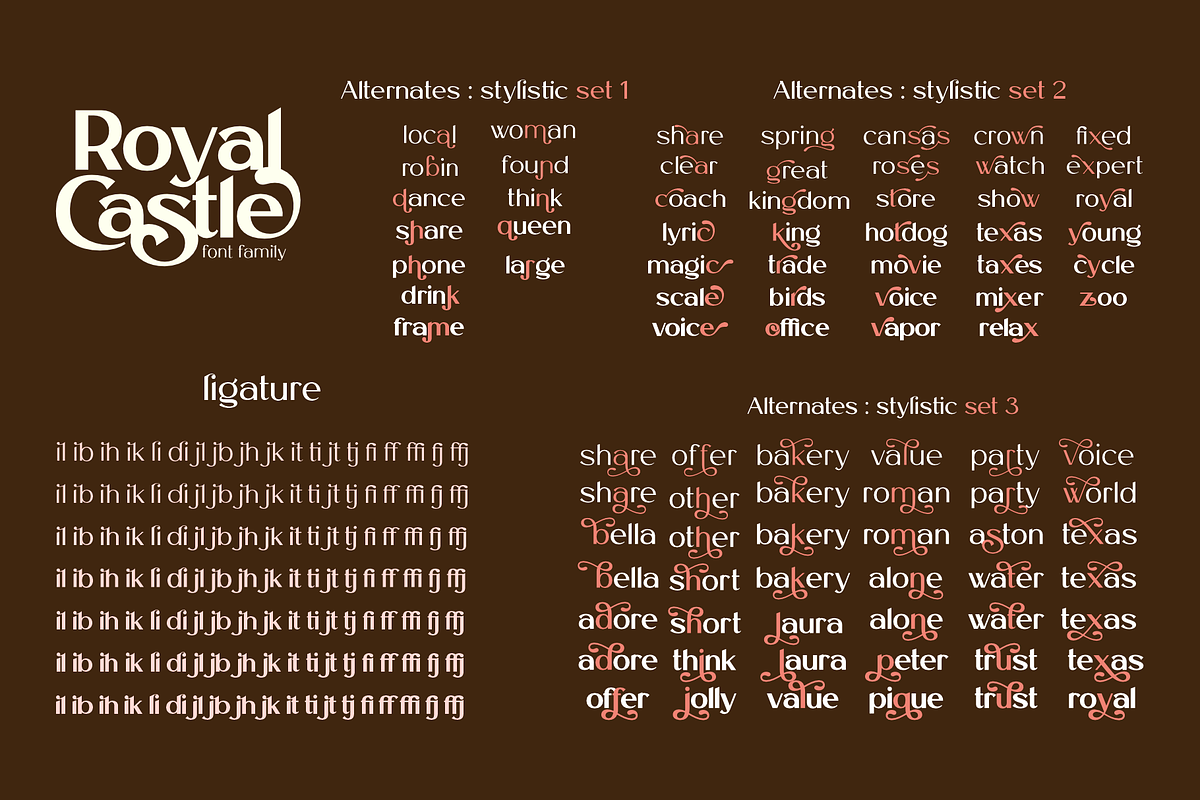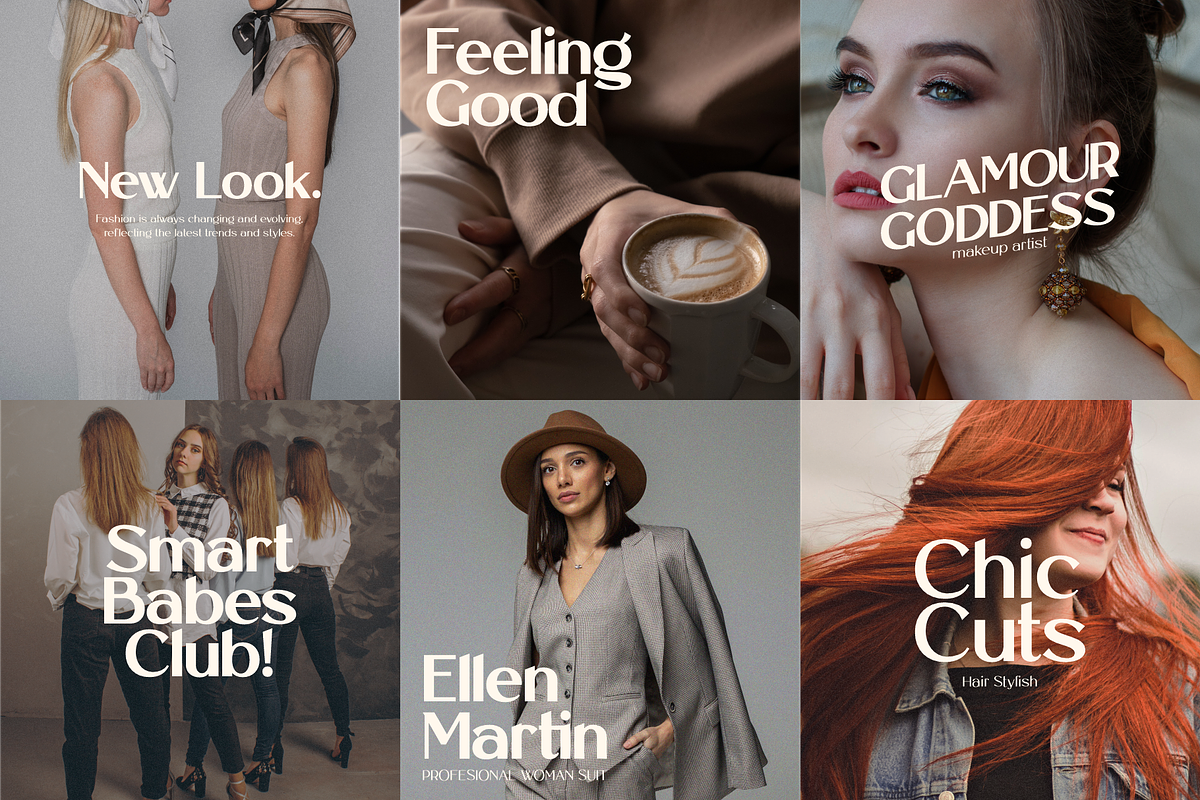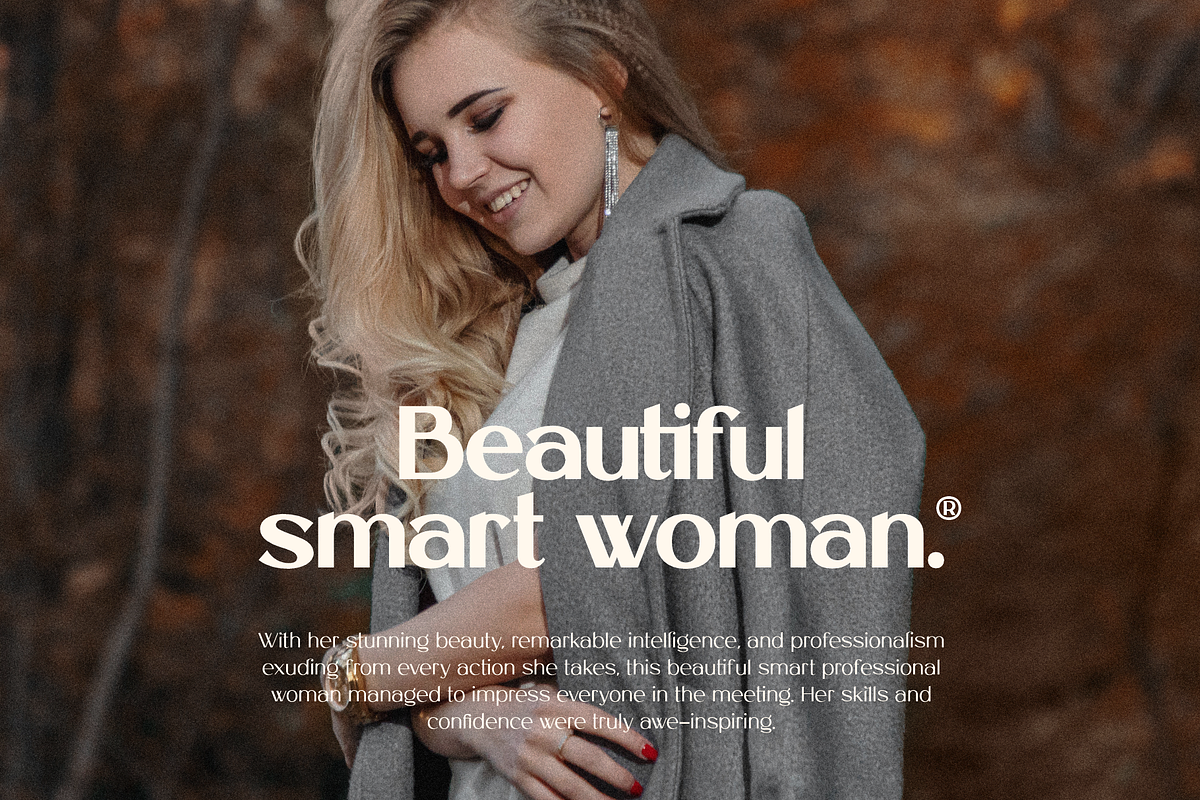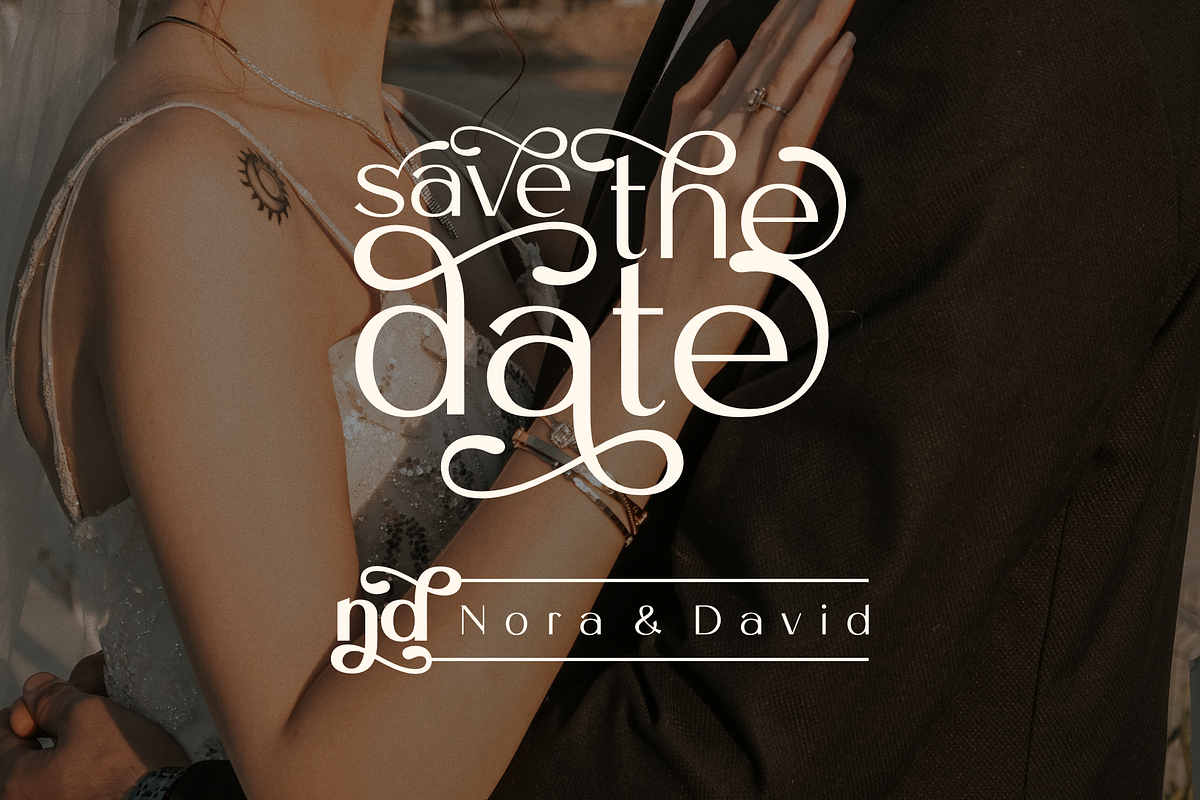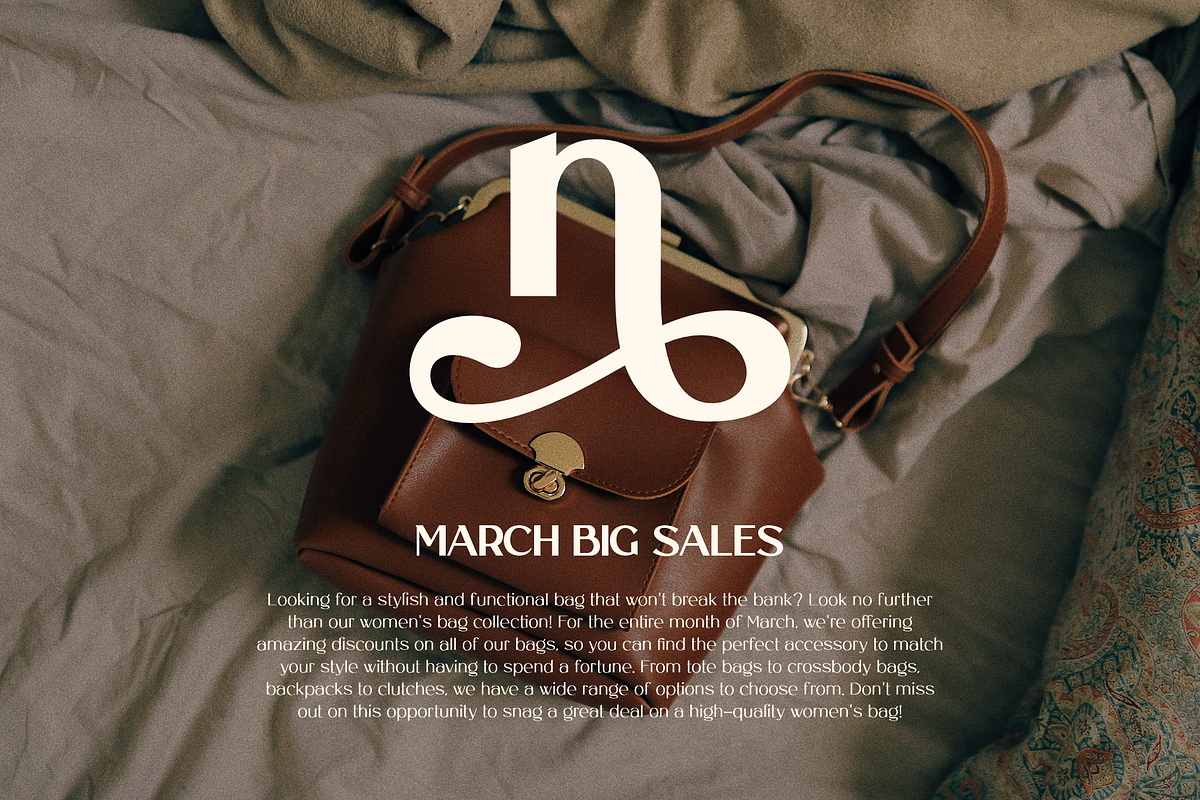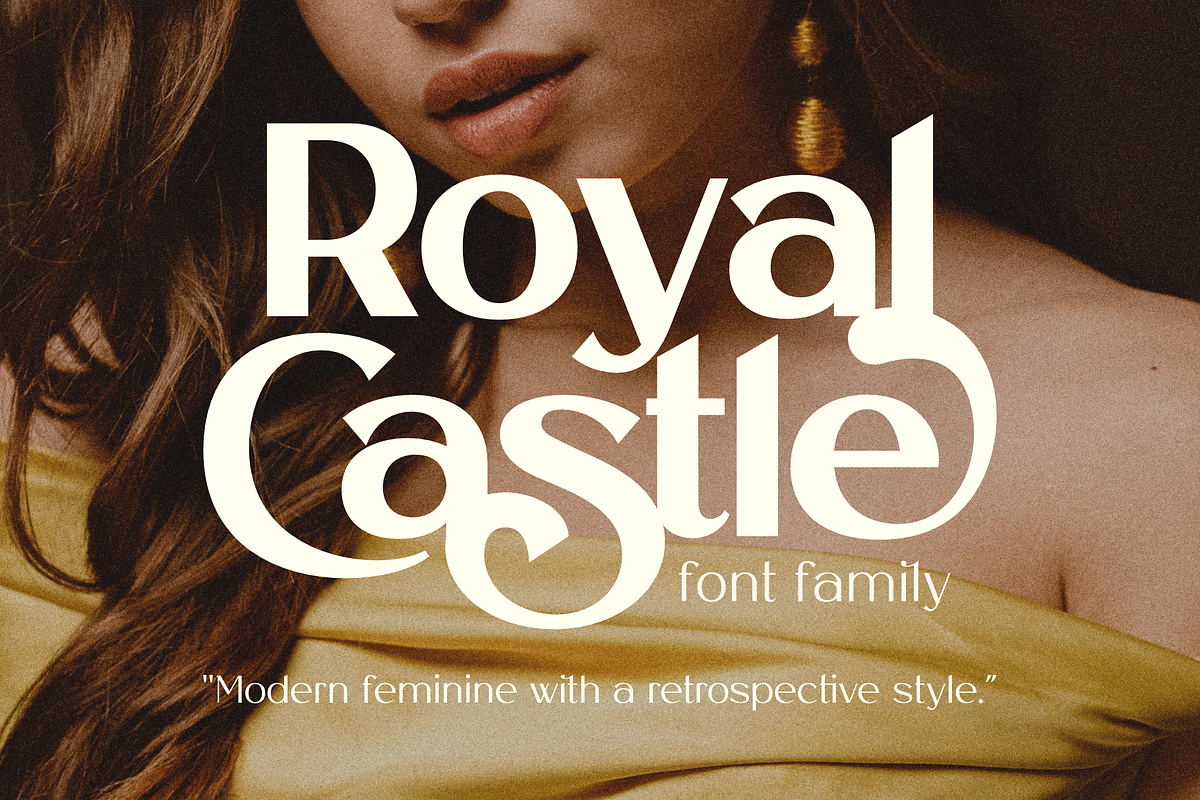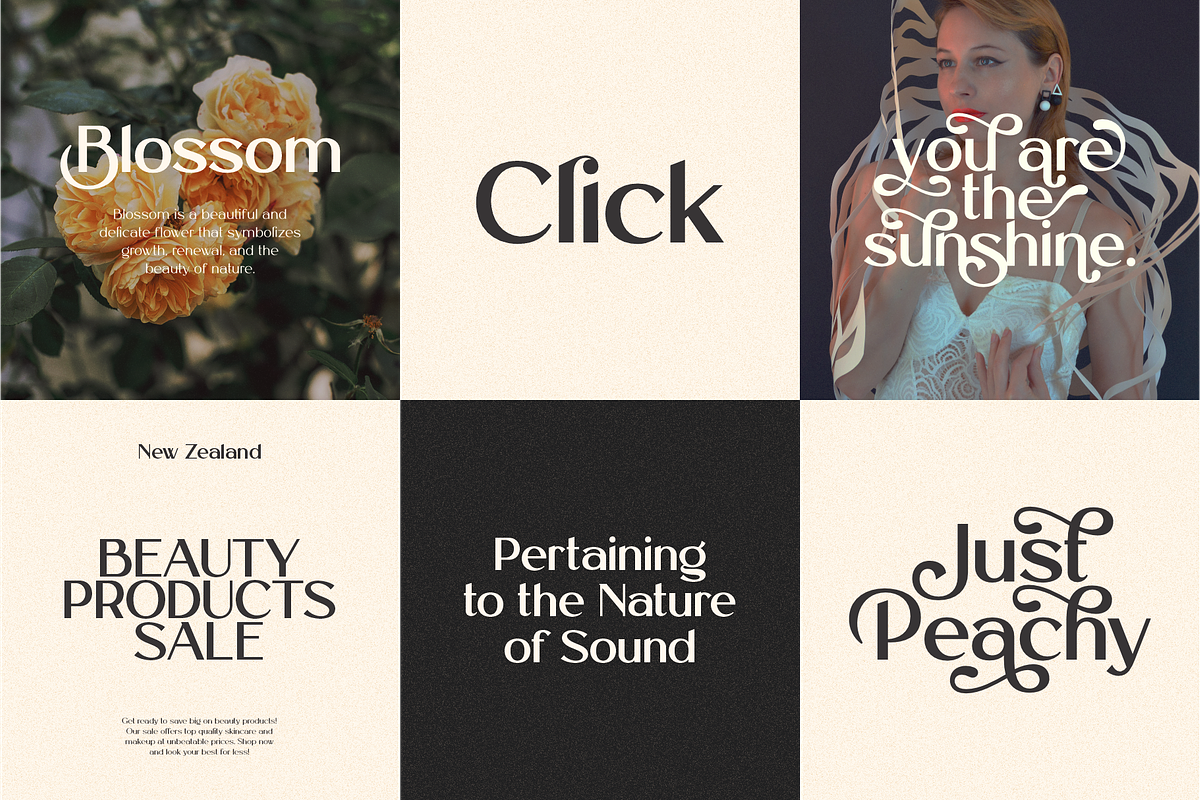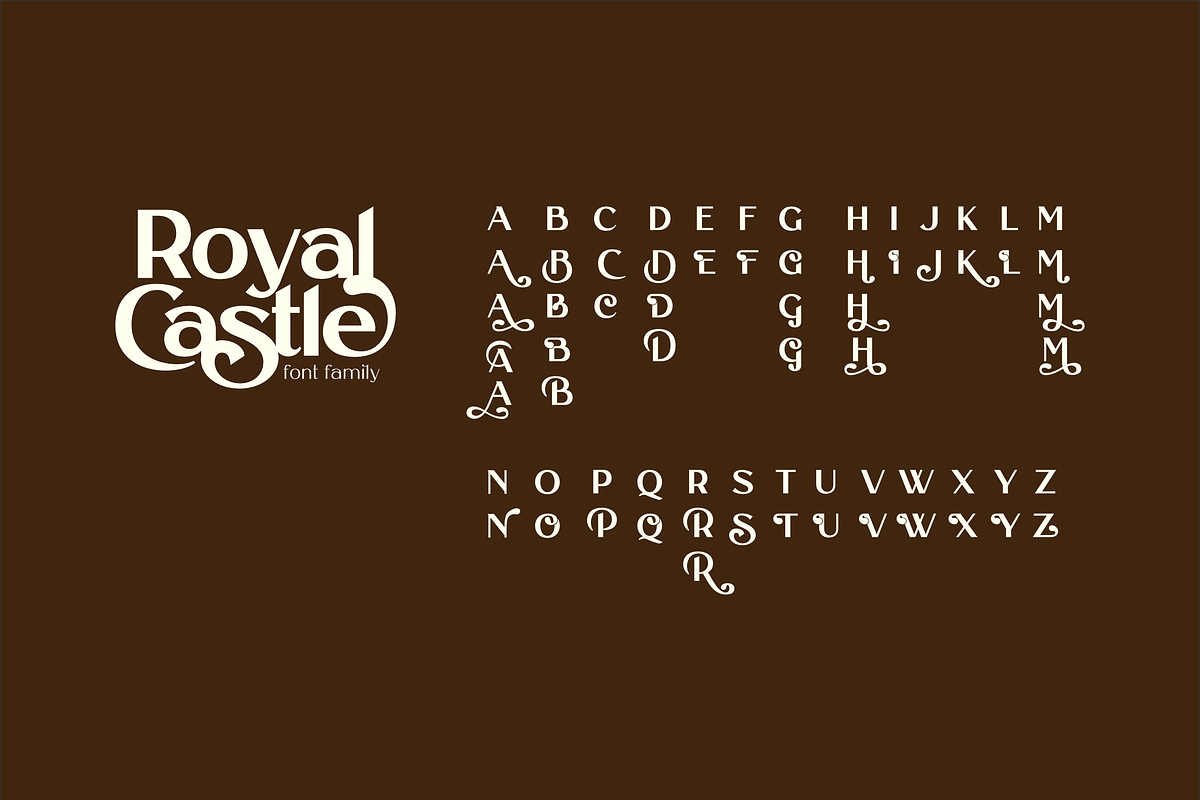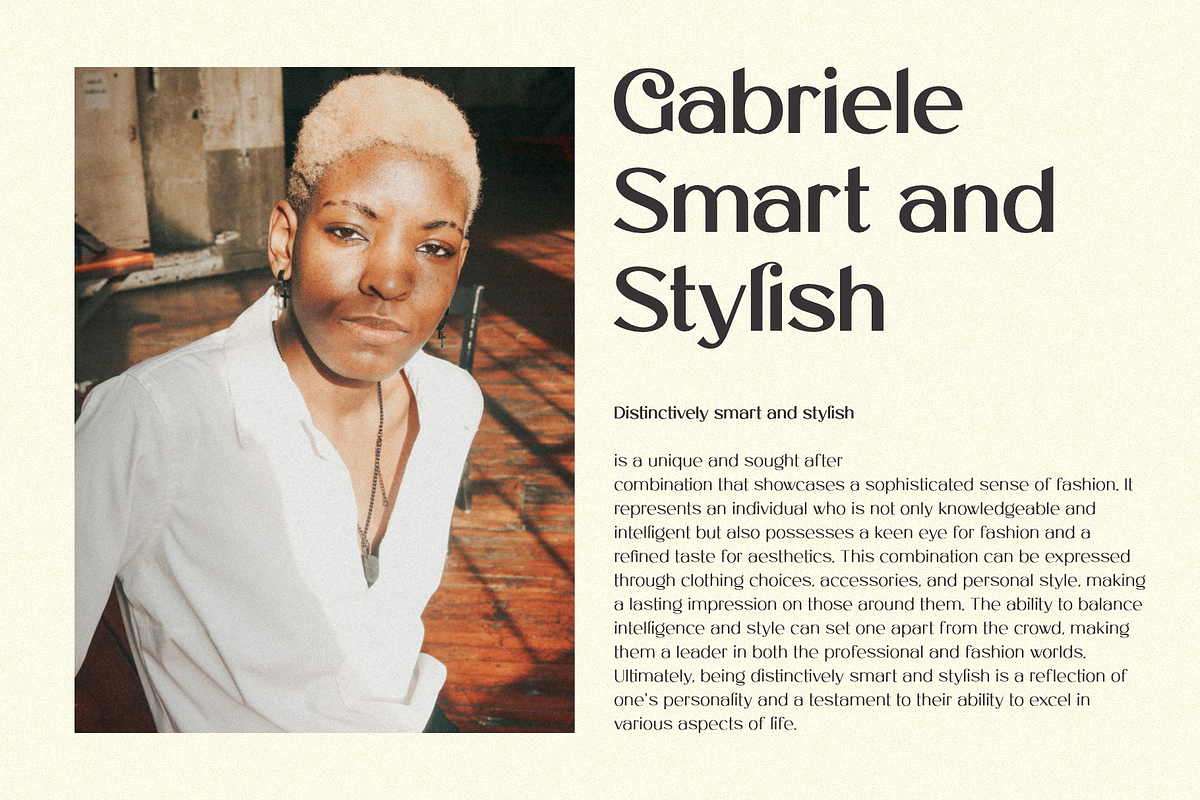
Royal Castle - Font Family
Royal Castle is a unique sans serif font family. It features a luxurious style and amazing swashes. It comes packed in 7 styles. Royal Castle feels playfully nostalgic and delivers an incredible vintage aesthetic. Use it to add that special retro touch to any design idea you can think of!